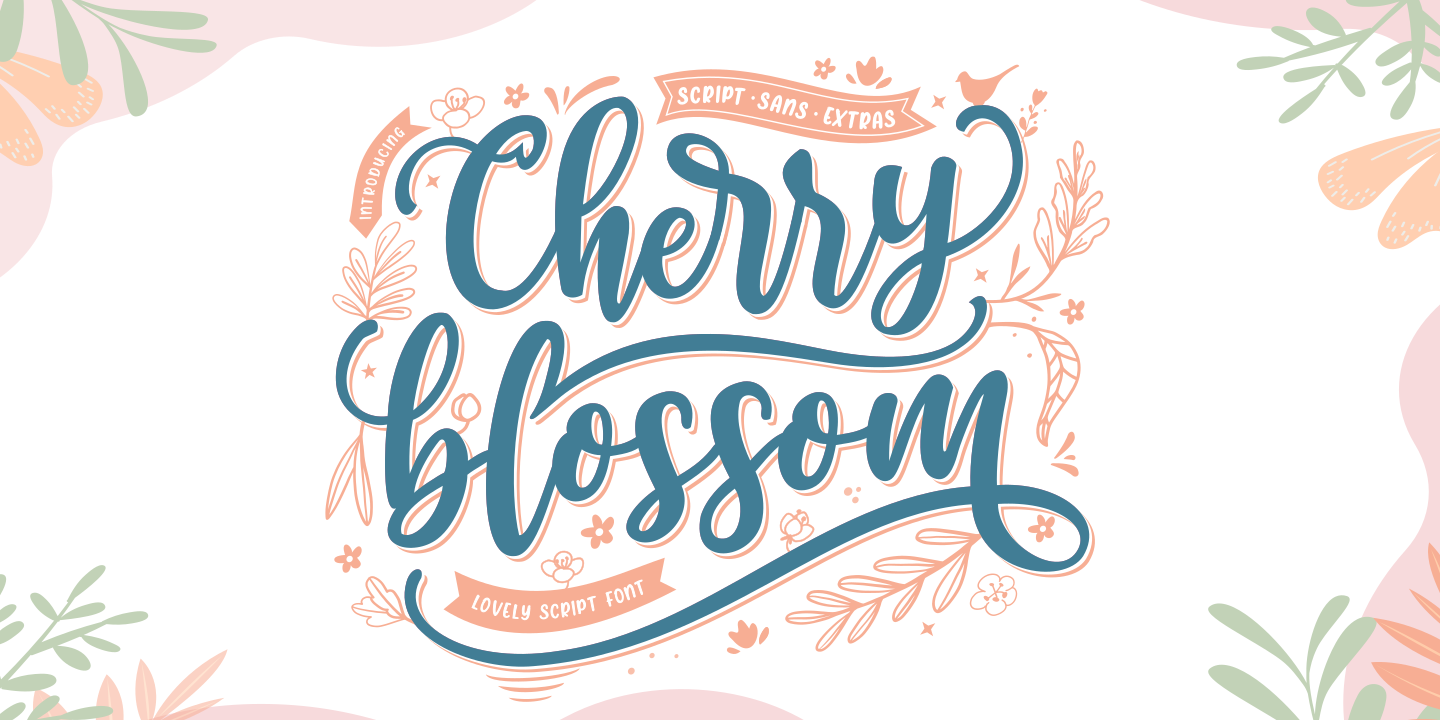
Cherry Blossom
Cherry Blossom is a display, modern calligraphy and dingbat font family. This typeface has three styles and was published by Zeenesia Studio.
Cherry Blossom is a lovely trio font (sans serif, script and dingbats). Expertly designed to make your creation look out of this world, this font will look gorgeous on a variety of ideas. Cherry Blossom is PUA encoded which means you can access all of the glyphs and swashes with ease!